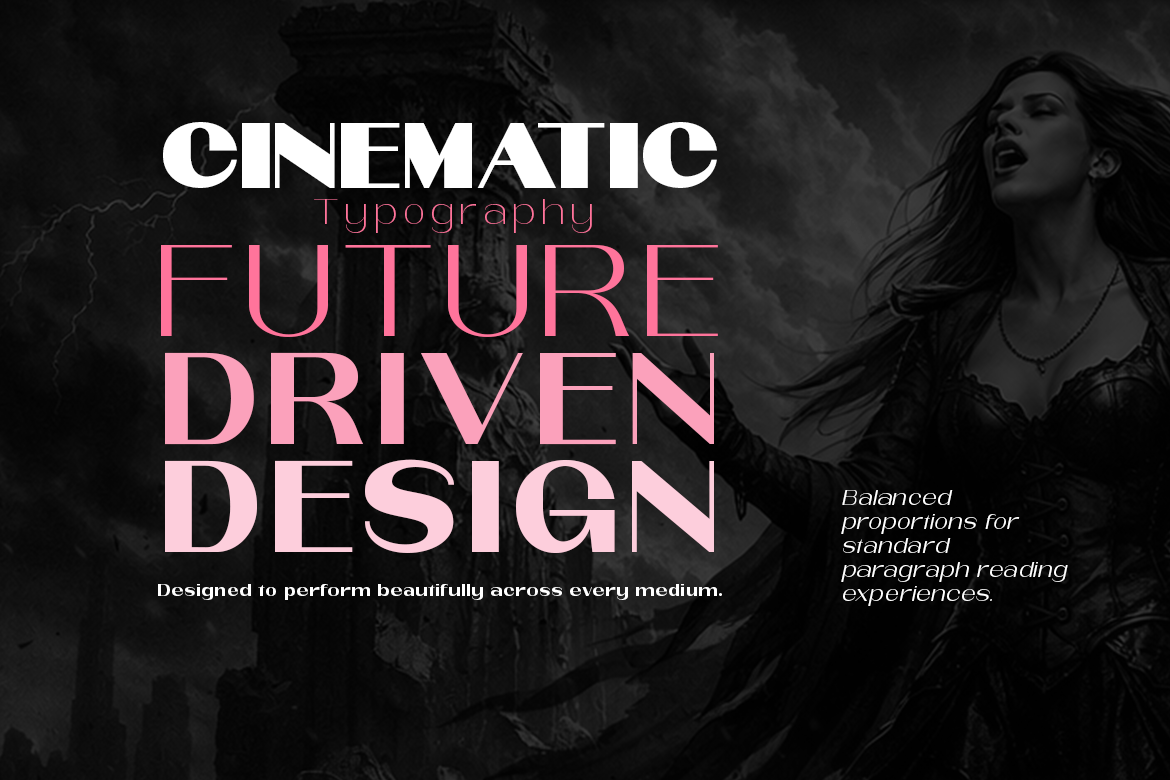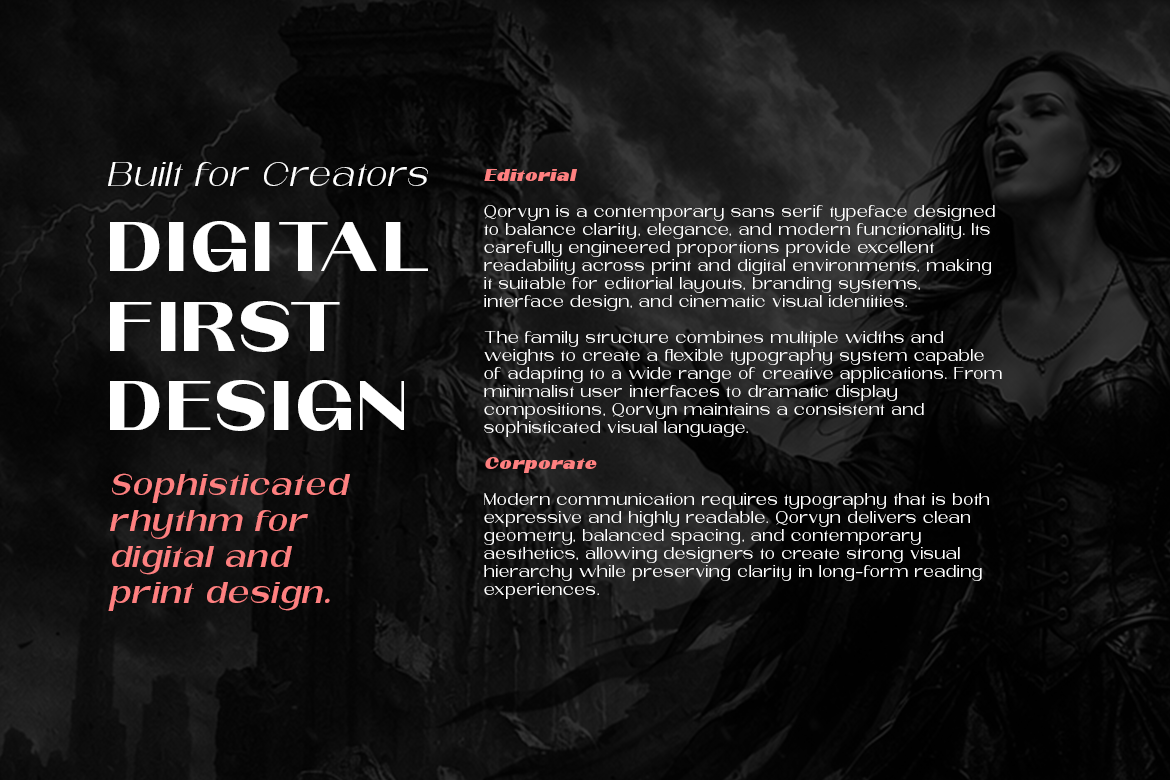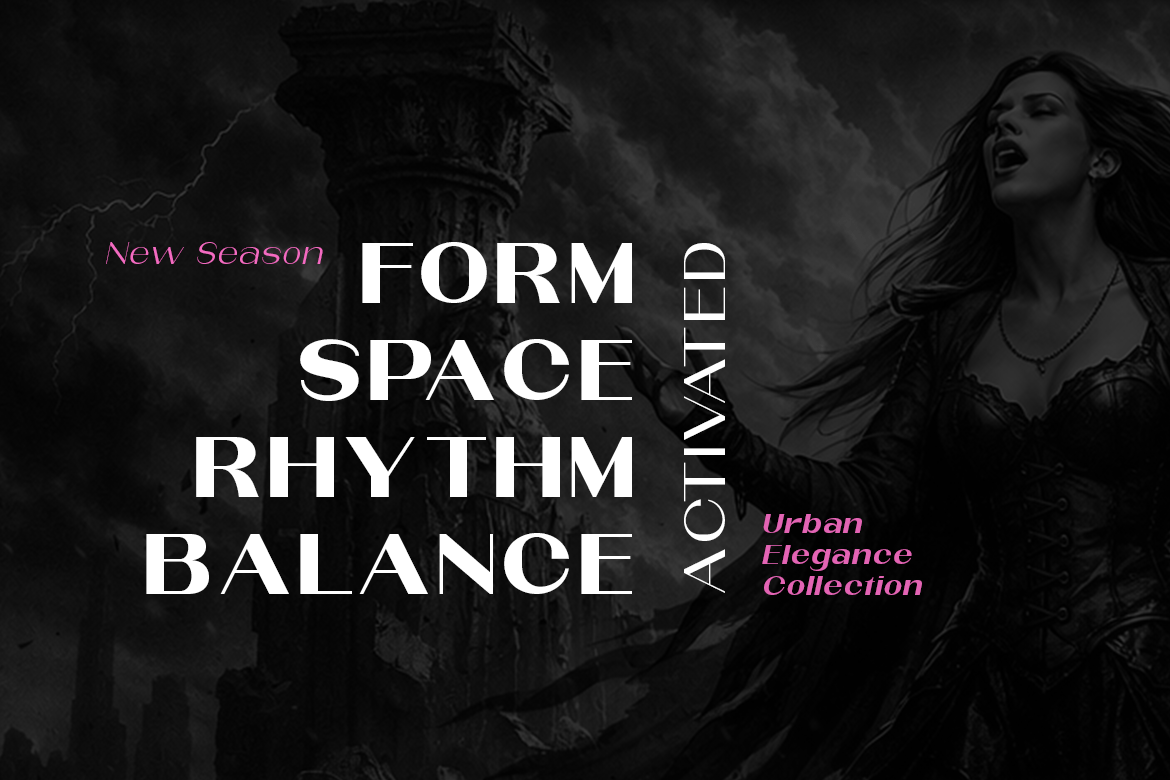
Qorvyn Extra Expanded
Qorvyn Extra Expanded is a striking modern sans-serif typeface family designed to maximize visual impact through extremely wide proportions and bold contemporary styling. Built with an extra-expanded structure, the family creates a powerful sense of openness, stability, and dominance, making it ideal for large headlines, branding systems, posters, advertising, packaging, entertainment graphics, sports visuals, and futuristic display typography. The family features 18 styles — 9 upright and 9 italic — ranging from elegant thin weights to intense black styles, providing exceptional versatility for expressive design work.
The upright styles deliver a clean, commanding, and highly structured appearance with refined geometric construction and spacious letterforms that enhance visibility and readability. The italic styles add dramatic movement and energetic flow, introducing dynamic character while maintaining consistency across the family. Qorvyn Extra Expanded combines modern minimalism with bold typographic expression, resulting in a typeface family that feels confident, premium, and visually distinctive. Its expansive proportions create a unique visual rhythm that stands out strongly across both print and digital media, especially in high-impact display applications.
The Qorvyn Extra Expanded font family includes 231 glyphs.